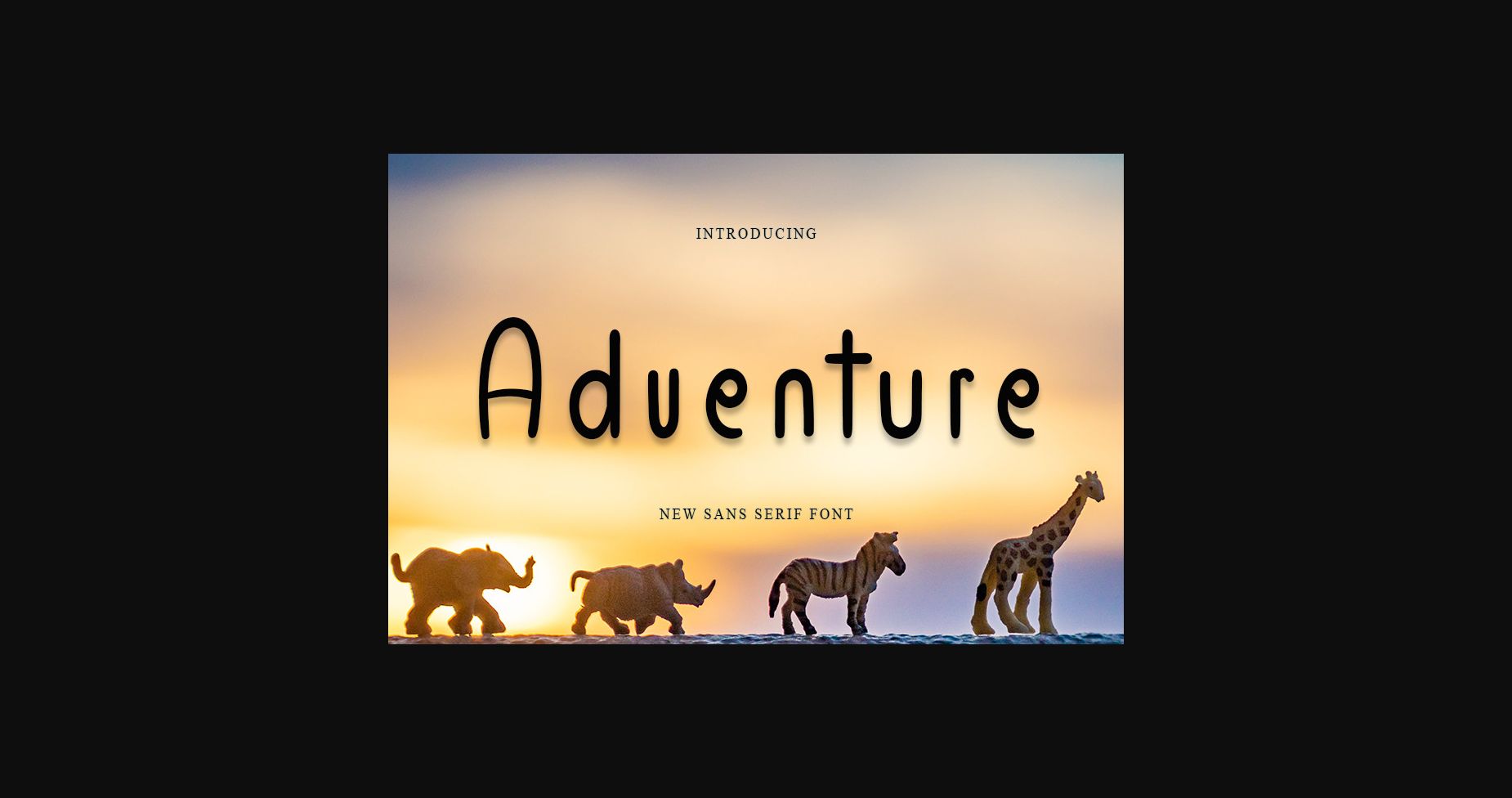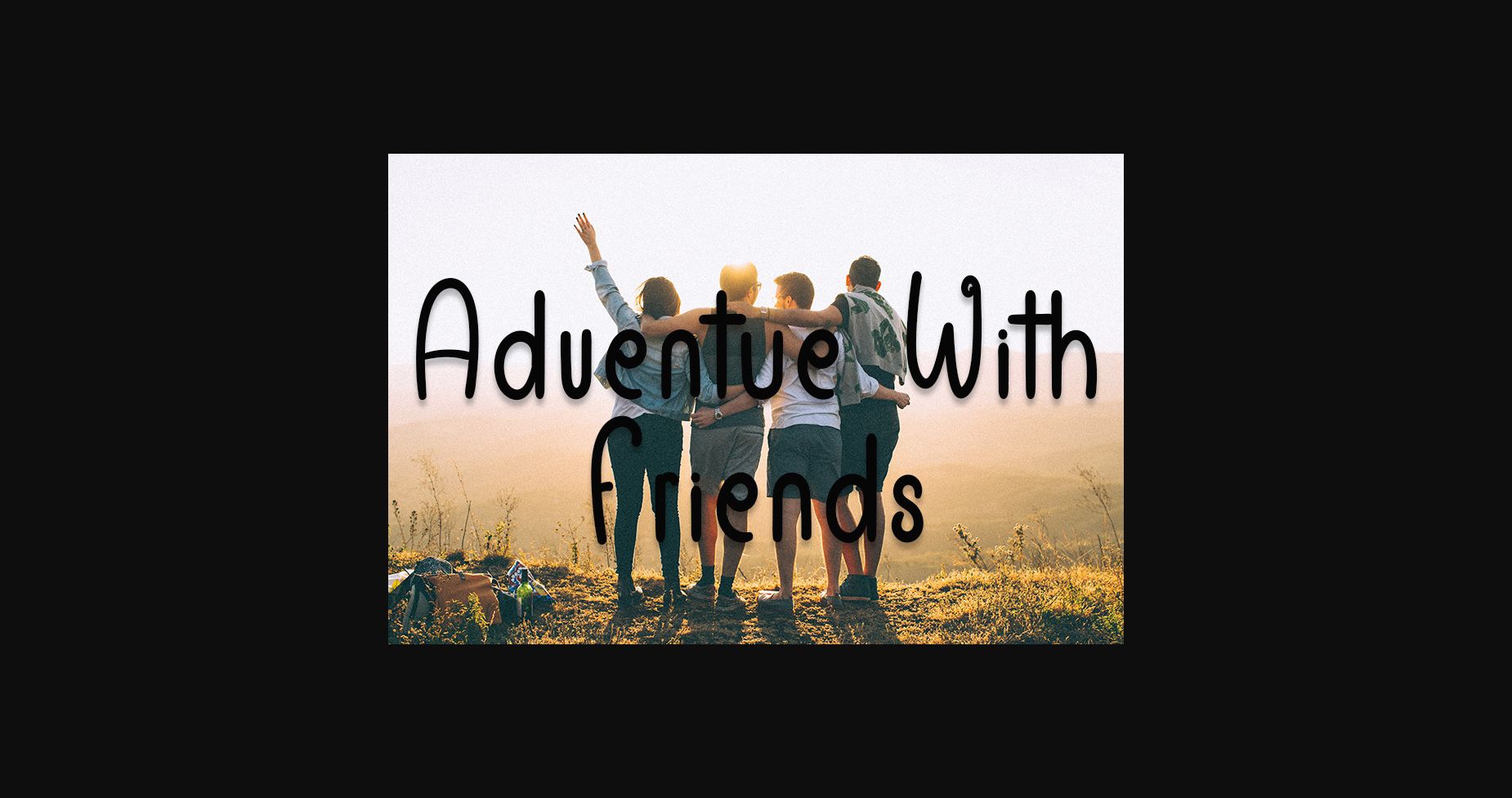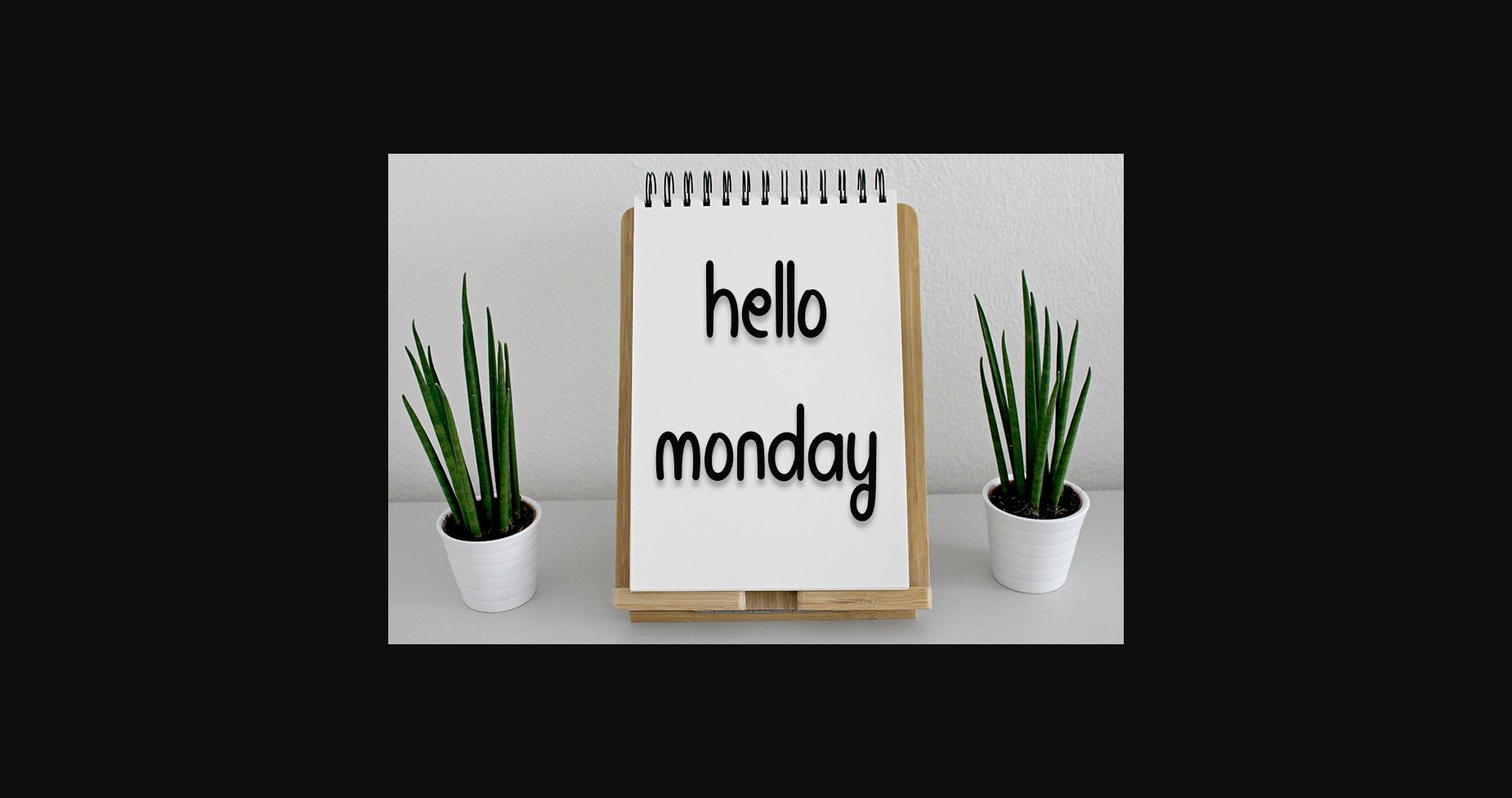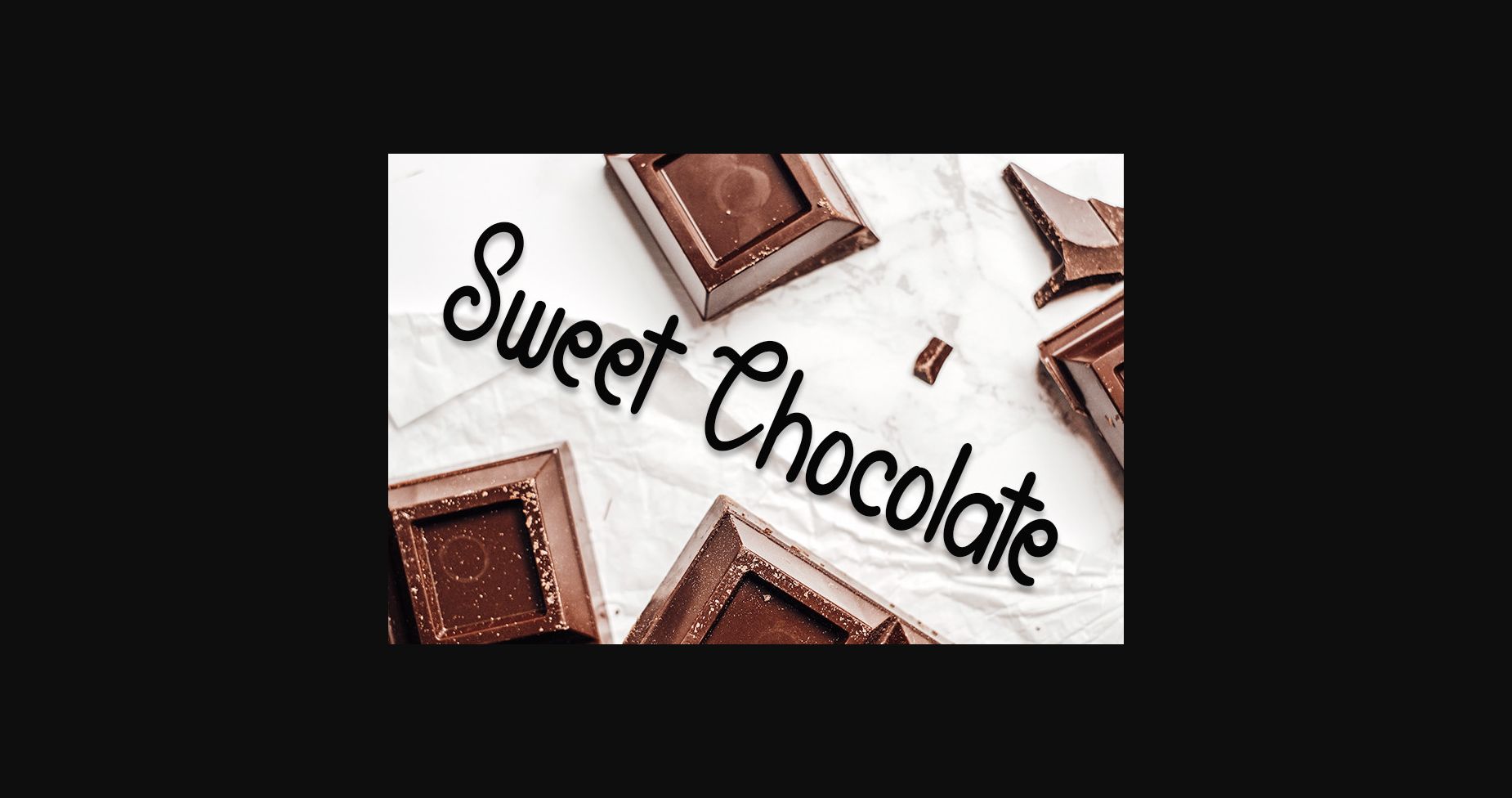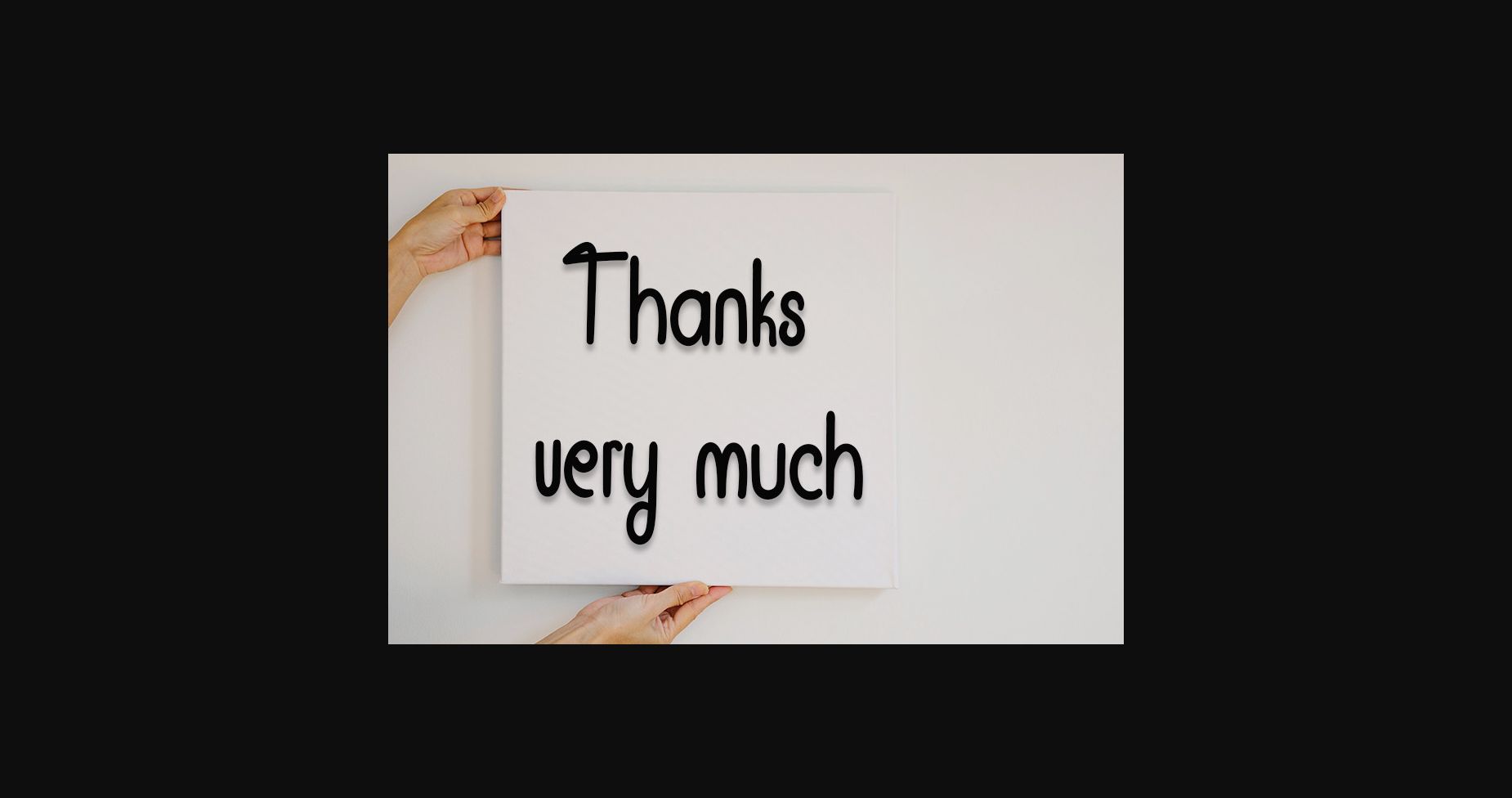
HomeSans Serif FontsAdventure Font Sans Serif Fonts Adventure Font FacebookXPinterestWhatsApp 1 of 7 ... Adventure Font Poster 2... Adventure Font Poster 3... Adventure Font Poster 4... Adventure Font Poster 5... Adventure Font Poster 6... Adventure Font Poster 7... About Adventure Font Adventure is a sweet and delicate sans serif font. Dainty and joyful, this font will be ideal for writing wedding invitations, cards or any other design that may need a romantic, personalized touch! DOWNLOAD NOW People also explored DespaiR Font Blithe Soul Font Generous Font Bowling Font Montana Font Butterflies Font Quite Colorful Font Argodame Extra Light Font Ludhovicf Semi-Bold Font 394 0 TagsAdventure Font Previous articleEASTER FontNext articleMM Vert Font LEAVE A REPLY Cancel reply Comment: Please enter your comment! Name:* Please enter your name here Email:* You have entered an incorrect email address! Please enter your email address here Website: Save my name, email, and website in this browser for the next time I comment. Personal Use Free Planning Personal Use Free Read more about this font Lovely Girl Personal Use Free Read more about this font Reztop Personal Use Free Read more about this font Goldsaber Personal Use Free Read more about this font BLOG Using Fonts in Digital Marketing: Tips to Strengthen Your Brand Identity In the realm of digital marketing, every visual element plays a crucial role in shaping a brand's identity, and fonts are no exception. The... Top 7 Google Fonts Alternatives for Faster and Privacy-Friendly Web Design (2025) To increase your work productivity, choose the most readable fonts. Elegant Wedding Invitation Fonts – Handwritten & Script Fonts